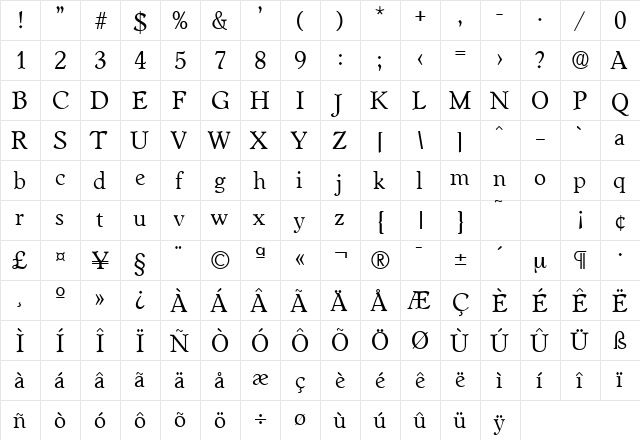
Worcester-Serial Regular
Design Context for Worcester-Serial Typeface
Worcester-Serial is a composed and adaptable typeface that performs quietly and consistently across a wide range of design contexts.